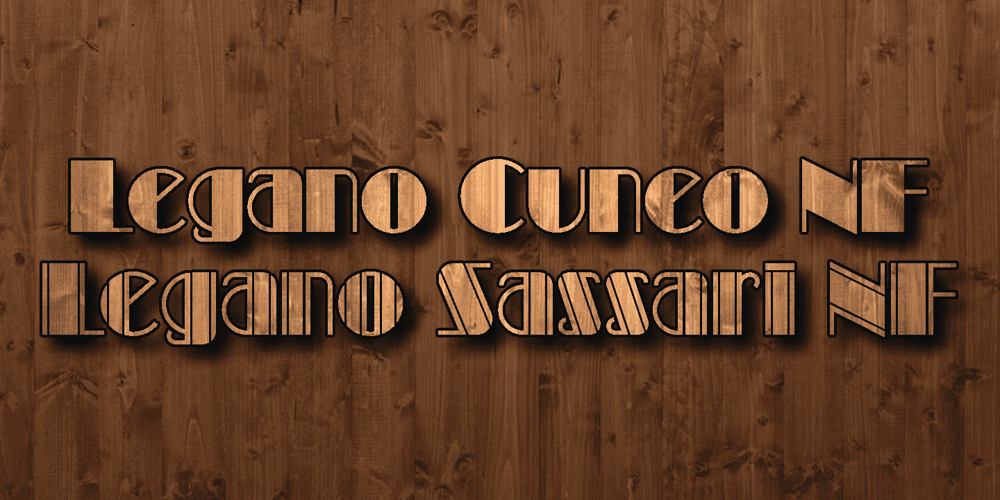
Legnano
Legnano font
Legnano Font Family was designed by Nick Curtis and published by Nick’s Fonts. Legnano contains 2 styles and family package options. Here’s something you don’t see every day—Italian Art Deco woodtype. It’s suave but unsophisicated, an unpretentious charmer. Both versions support the Latin 1252, Central European 1250, Turkish 1254 and Baltic 1257 codepages.